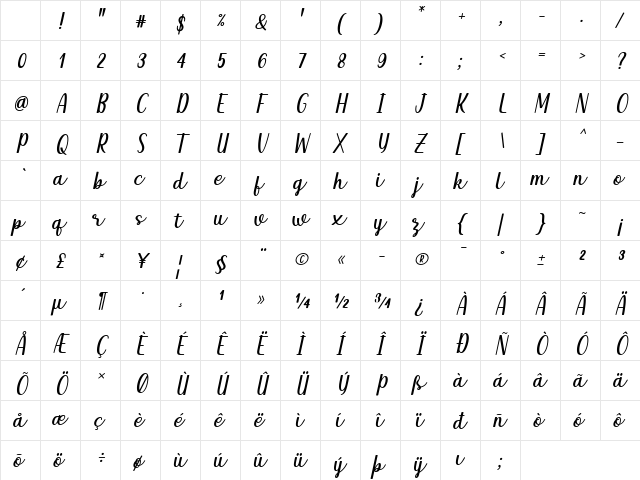
Qeiza is a composed and adaptable typeface that performs quietly and consistently across a wide range of design contexts. The slanted form adds forward momentum and visual energy.
Pro Tip: Use Qeiza for emphasis, pull quotes, and subheadings where its slanted energy can add rhythm to the layout.